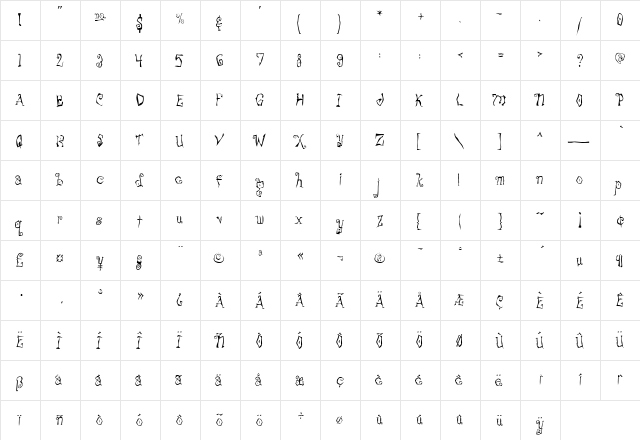
Freakshow-ScaryA Regular
Freakshow-ScaryA carries an unsettling edge — its distorted letterforms are built to unsettle, perfectly suited to horror, Halloween, and dark creative work.
Ideal for Halloween projects, horror film titles, haunted house signage, and dark editorial design.
Font Pairing: Pair with a clean neutral sans-serif for body copy to let Freakshow-ScaryA's character lead without overwhelming the composition.
Pro Tip: Freakshow-ScaryA works best as a headline or focal element. Pair it against plain, neutral body text to amplify the contrast.